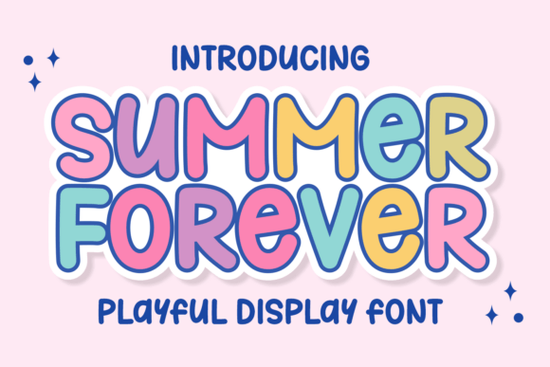
If you have been searching for a way to bring sunny days and happy moments into your projects, Summer Forever Font might be exactly what you need. This typeface does more than just display text; it captures the specific feeling of an unhurried Sunday morning filled with warm sunlight. For crafters and small business owners, choosing the right typography is often about the emotion behind the design. This particular style mixes playful curves with a clean structure, making it suitable for various personal and commercial creations.
When working on designs that require a bit of personality without becoming overwhelming, the balance in this display font is crucial. It offers both uppercase and lowercase forms that interact well together, resembling a cherished handwritten note rather than something mechanical. You can find plenty of inspiration for similar vibes by exploring collections designed for joyful themes. For instance, checking out display fonts with friendly aesthetics can help you understand the broader category of cheerful typefaces available for your shop. These kind of choices are perfect when you want your customers to feel a sense of connection just by reading the text.
Who Should Use This Typeface?
This tool is versatile enough for several different users, ranging from digital artists to physical product makers. Imagine creating T-shirts for a summer boutique or designing personalized party invitations for a child’s birthday party. The gentle, drifting borders mentioned in the design specs give it a whimsical texture while still maintaining a commanding presence on the screen. It works particularly well when you need to stir up fond memories in people who view your work. While you enjoy that specific summer feel, sometimes you might explore options that lean more towards kid-focused themes. Looking at fonts targeted for children can provide insight into how to scale down the elegance for younger audiences while keeping it readable.
Print-on-demand sellers often struggle to find characters that stand out in crowded marketplaces. With unique variability in heights and modern elegance woven into the letterforms, this typeface helps etch messages deeply into memory. It allows for narratives to form around your brand story. Whether you are uploading files to a marketplace or crafting custom stickers, having access to a font that handles distinct textures makes your life easier. If you are building a library of display fonts, it is worth noting how this one compares to other popular choices. You can see examples of bold, rounded styles like those found in bubble style collections to see what works best for packaging versus social media graphics.
Tips for Pairing and Layout
To get the most out of this character set, consider how it pairs with supporting text. Because the personality is so light-hearted yet structured, you can pair it with simple sans-serif fonts for body copy to keep the legibility high. It brings happiness and friendliness to the canvas, acting almost like a magical brushstroke in digital design software. When you mix it with assertive motifs or solid colors, the visual impact increases significantly. Some creators prefer a quirkier approach for specific holiday sales or limited edition drops. In those cases, reviewing alternatives like themed decorative displays can spark new ideas for seasonal campaigns. Ultimately, the goal is to create harmony between the font choice and your overall branding message.
Summer Forever remains a top contender for designers wanting to infuse warmth into their projects. By taking the time to understand its personality traits, you can apply it strategically to evoke nostalgia or excitement depending on your campaign. Start small with test prints or mockups to gauge audience reaction. Once you have confirmed the look, integrate it into your standard workflow for consistent results.